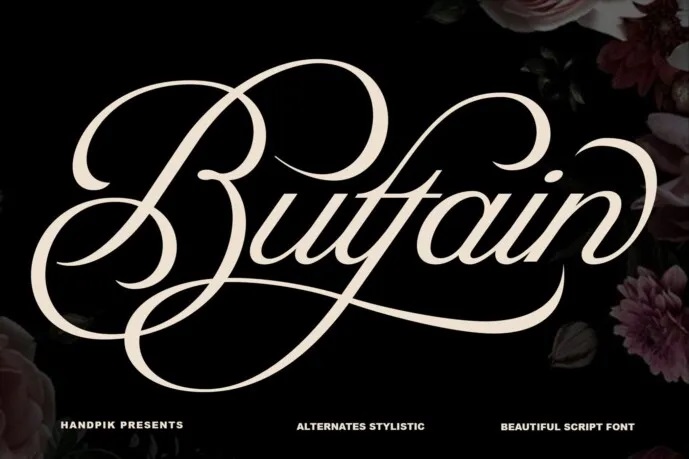
Buttain Font
Buttain Font will perfect for many projects: books, magazine, logo and branding, photo, quotations, blog header, post, advertisements, etc. The free version provides all uppercase and lowercase letters and a few special characters too.
Buttain Calligraphy Script Font